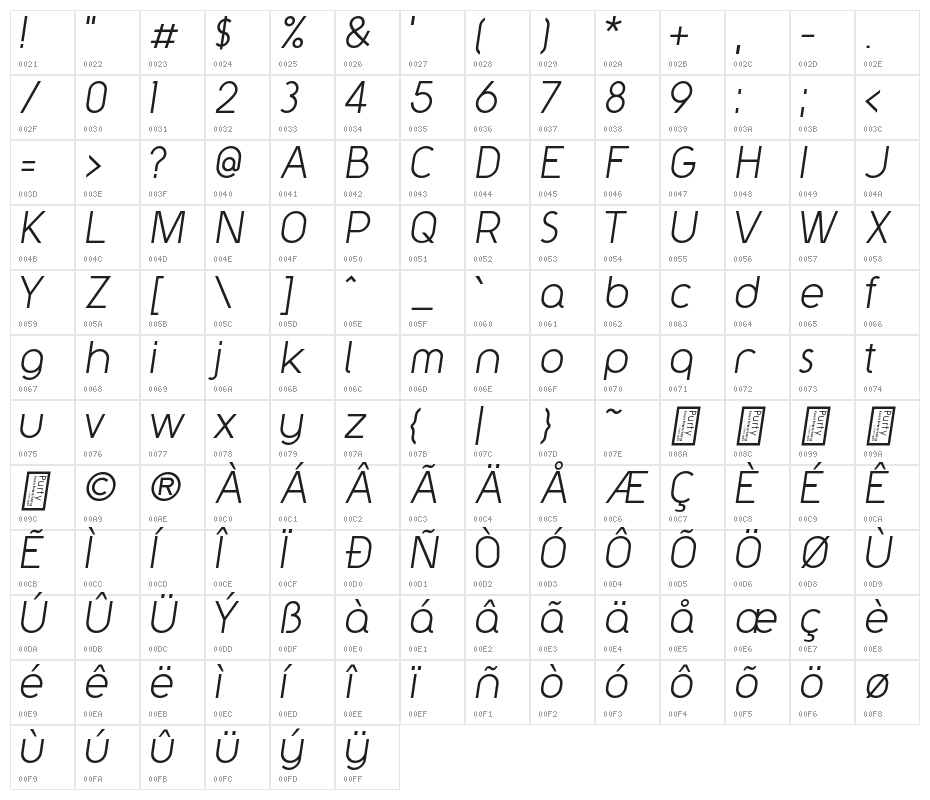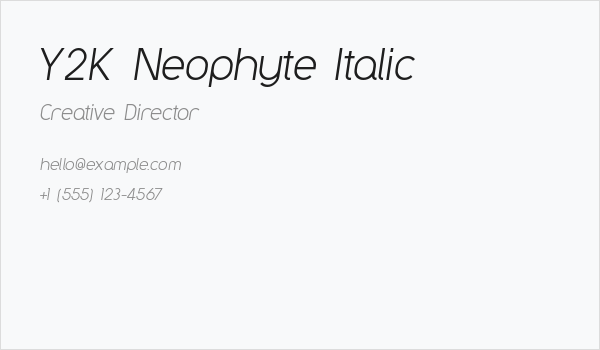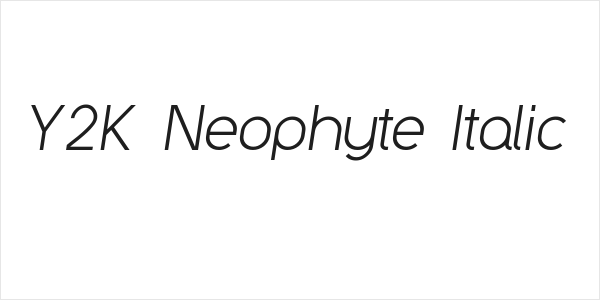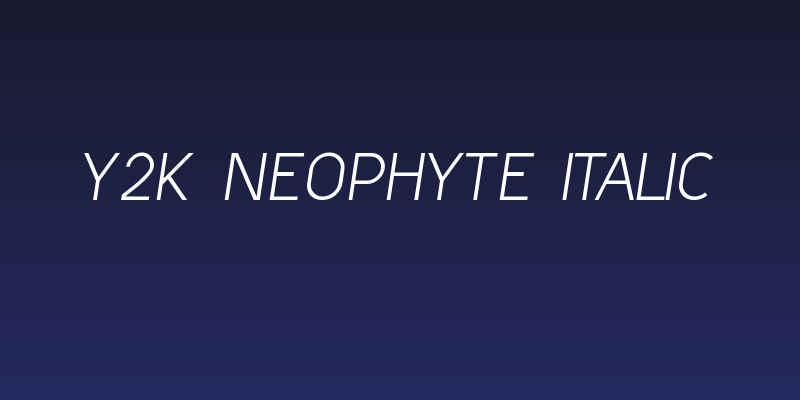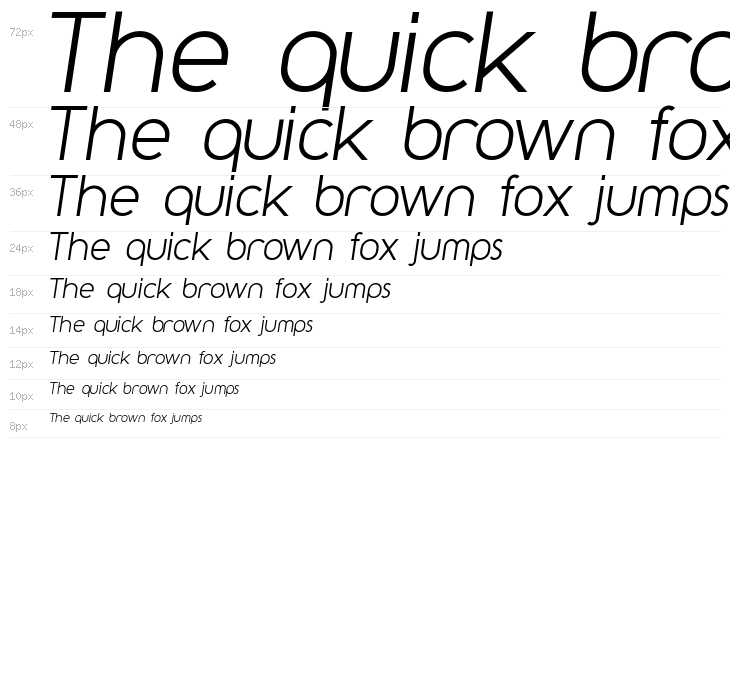
Y2K Neophyte Italic Font
Y2K Neophyte Italic Description
This font exhibits a sleek, modern design with a distinct italic slant, giving it a dynamic and forward-moving appearance. The characters are clean and sans-serif, featuring smooth curves and consistent stroke widths that contribute to a streamlined look. The uppercase and lowercase letters maintain a harmonious balance, while the numerals and special characters are designed to complement the overall aesthetic. The font's contemporary style makes it versatile for various digital and print applications, providing a fresh and engaging visual impact.
| Proposed Projects | Ideal for tech branding, modern advertising, digital interfaces, and editorial design. |